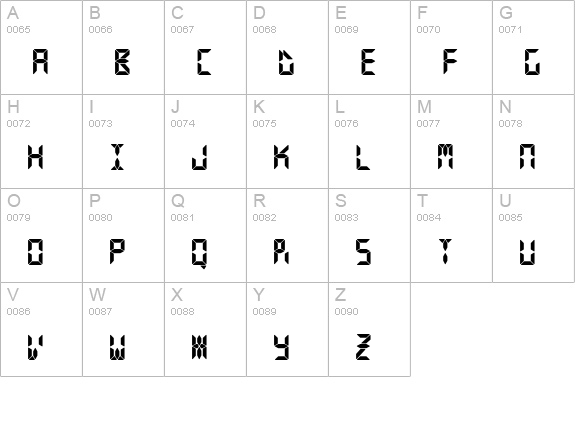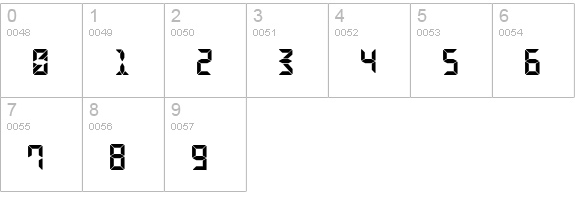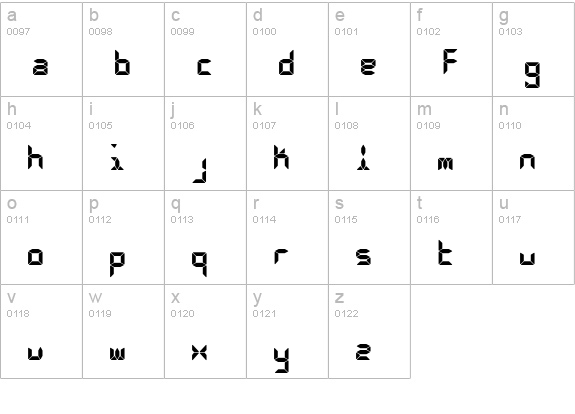
CalculusLCDRegular Font Details
CalculusLCDRegular font is a sleek and modern typeface perfect for digital displays and tech-related designs. Its clean lines and sharp edges give a futuristic feel, making it ideal for applications where a high-tech aesthetic is desired. This font is versatile and can be used for a wide range of projects, from websites to presentations to branding materials. What sets CalculusLCDRegular font apart is its unique LCD-inspired design, which gives it a distinct and eye-catching look. The precision and clarity of this font make it easy to read, even at small sizes or on high-resolution screens. Best of all, CalculusLCDRegular font is available for free download at FontsMarket.com. Whether you're a designer looking to add a modern touch to your work or a tech enthusiast wanting to enhance your digital projects, this font is a must-have in your collection. Download CalculusLCDRegular font today and elevate your designs with its sleek and futuristic style.